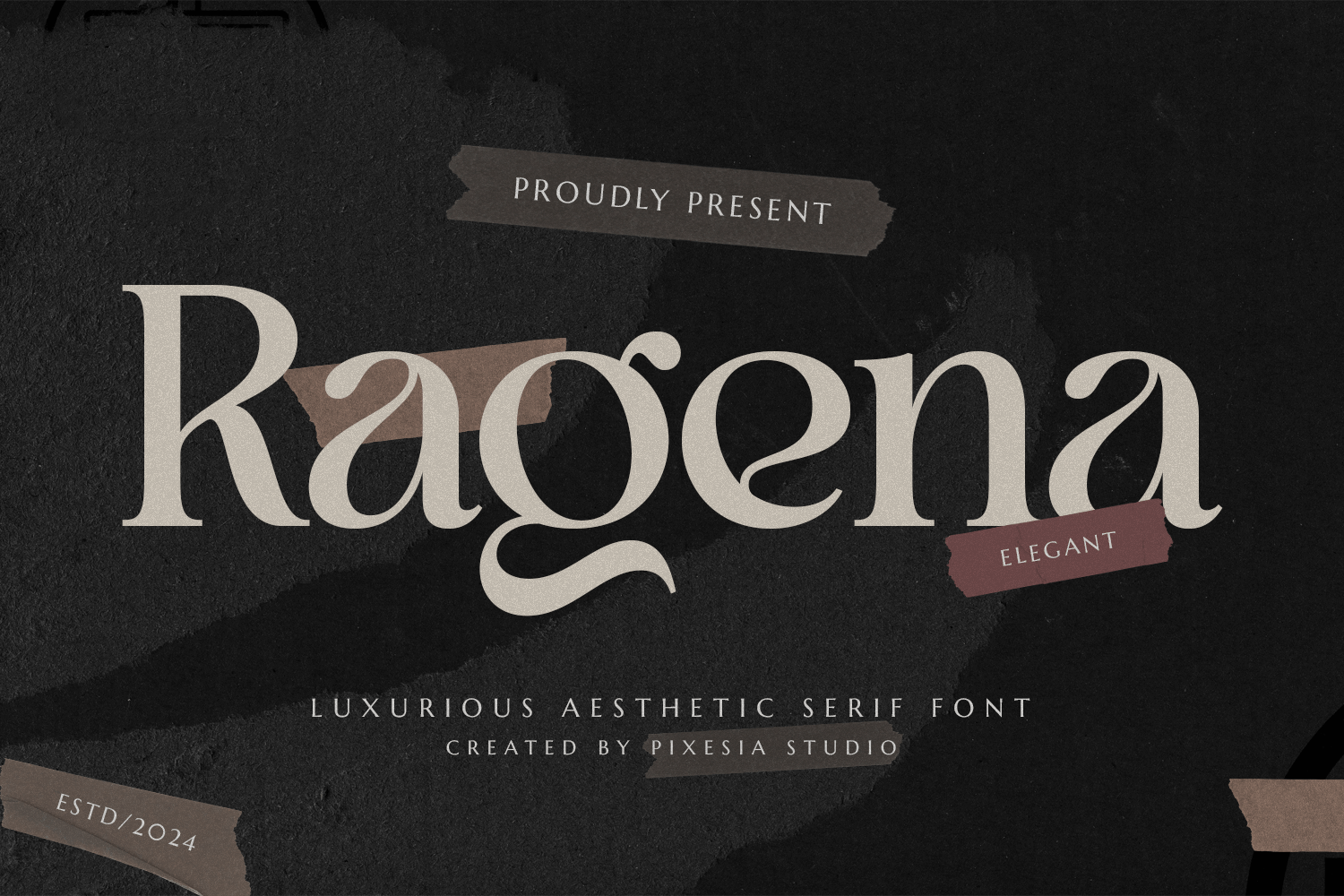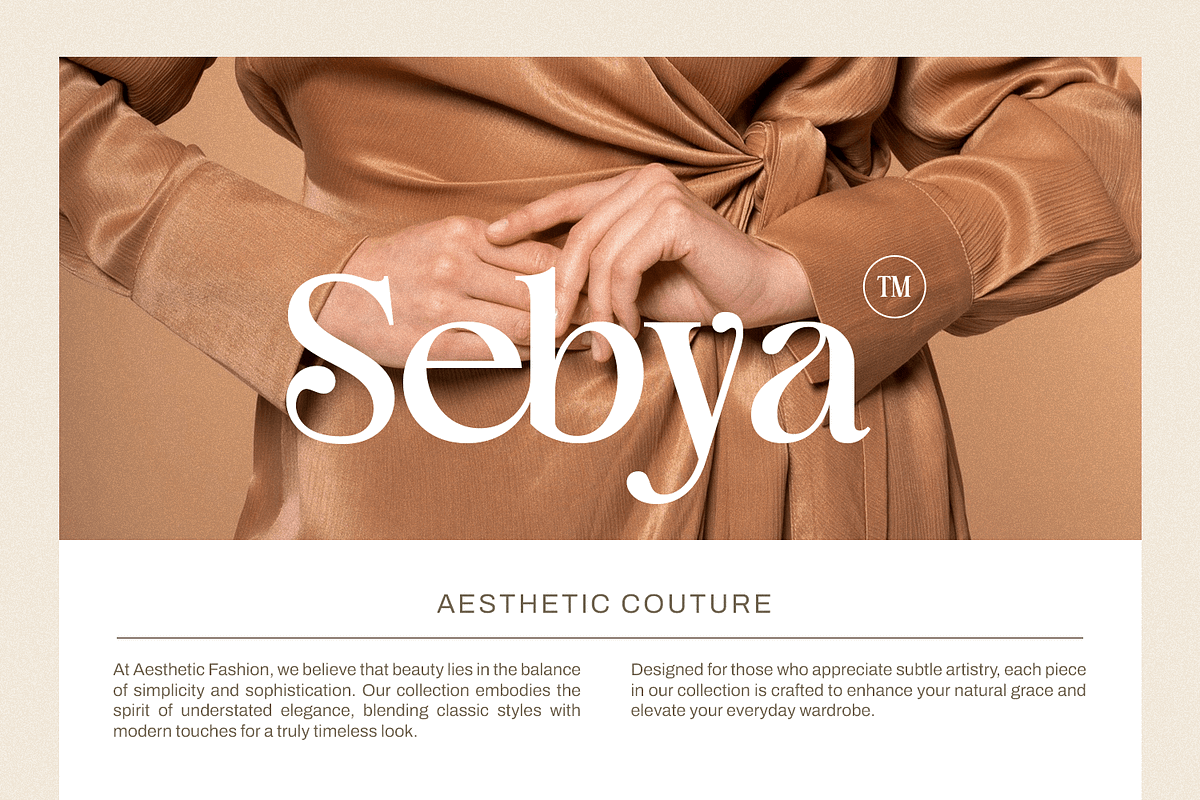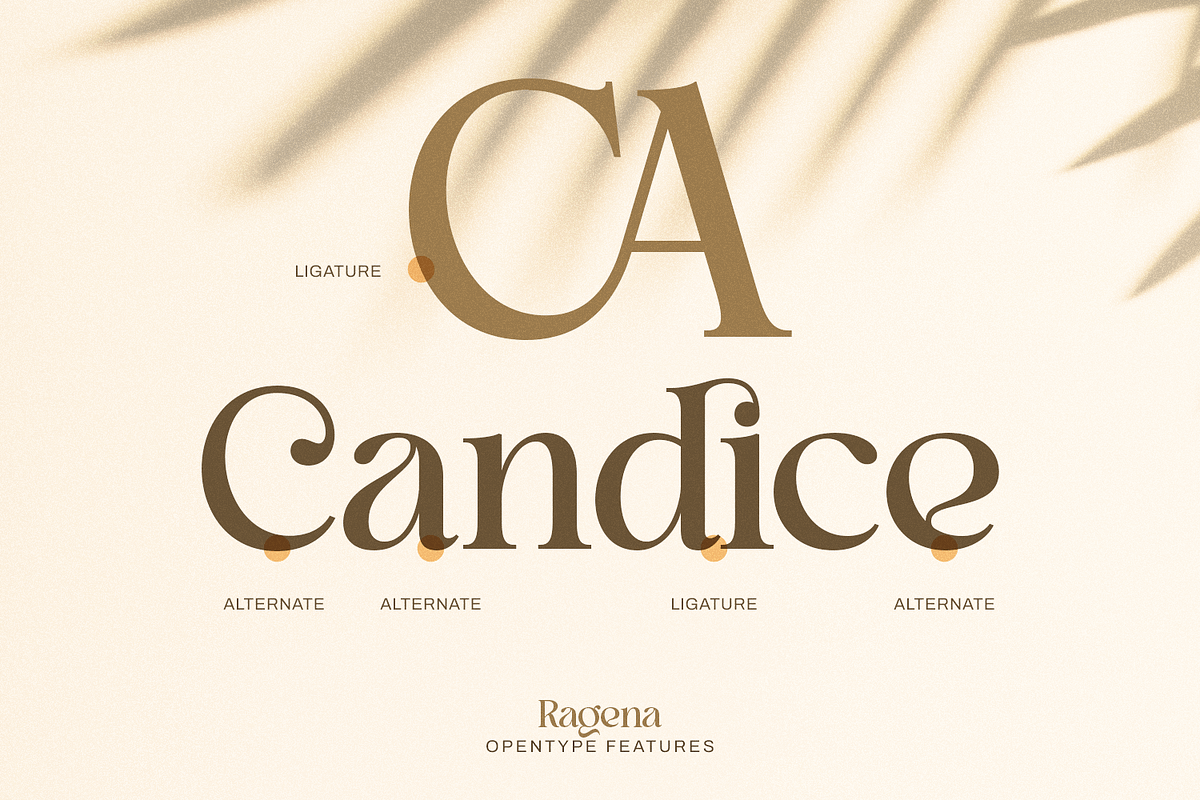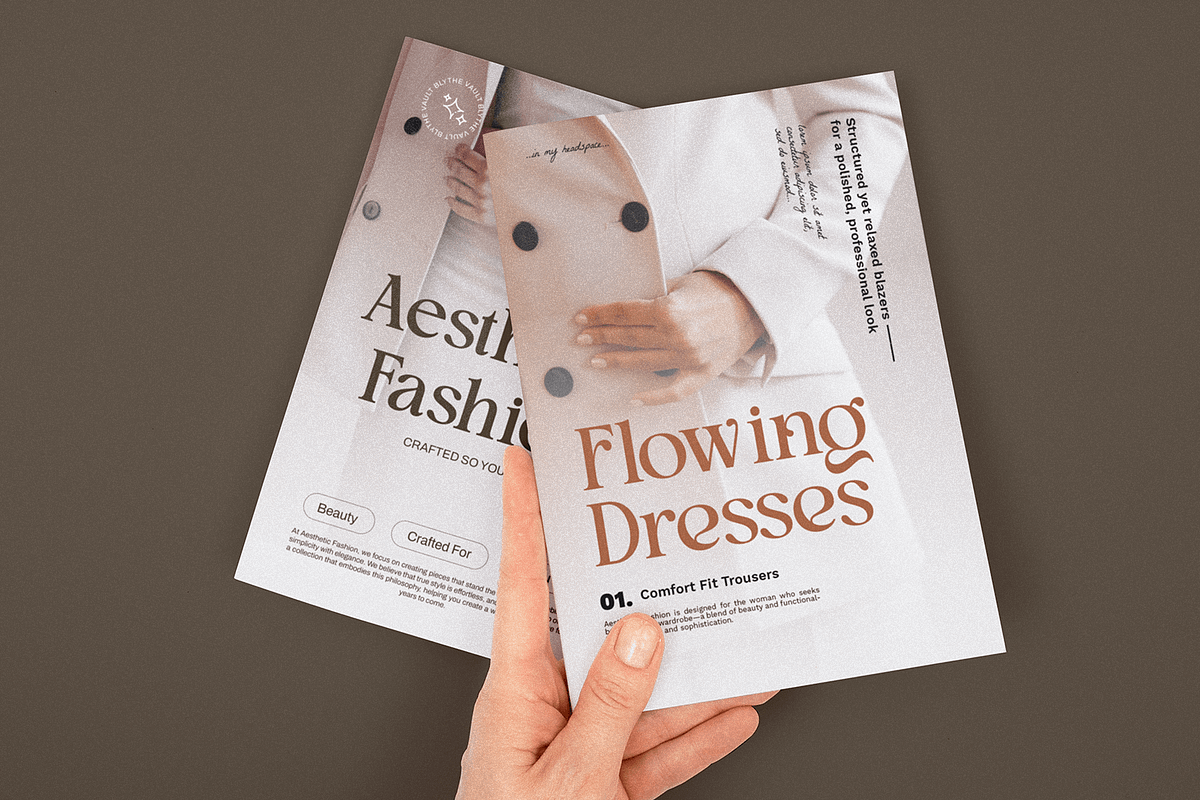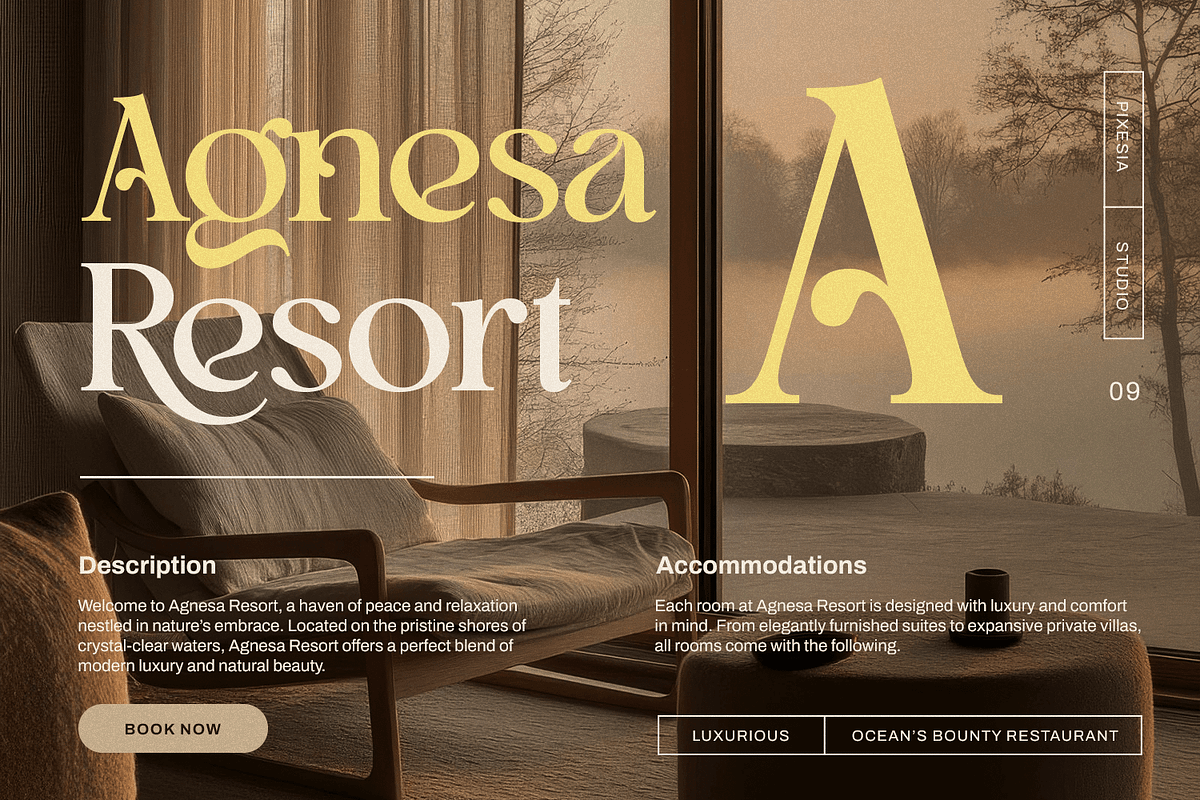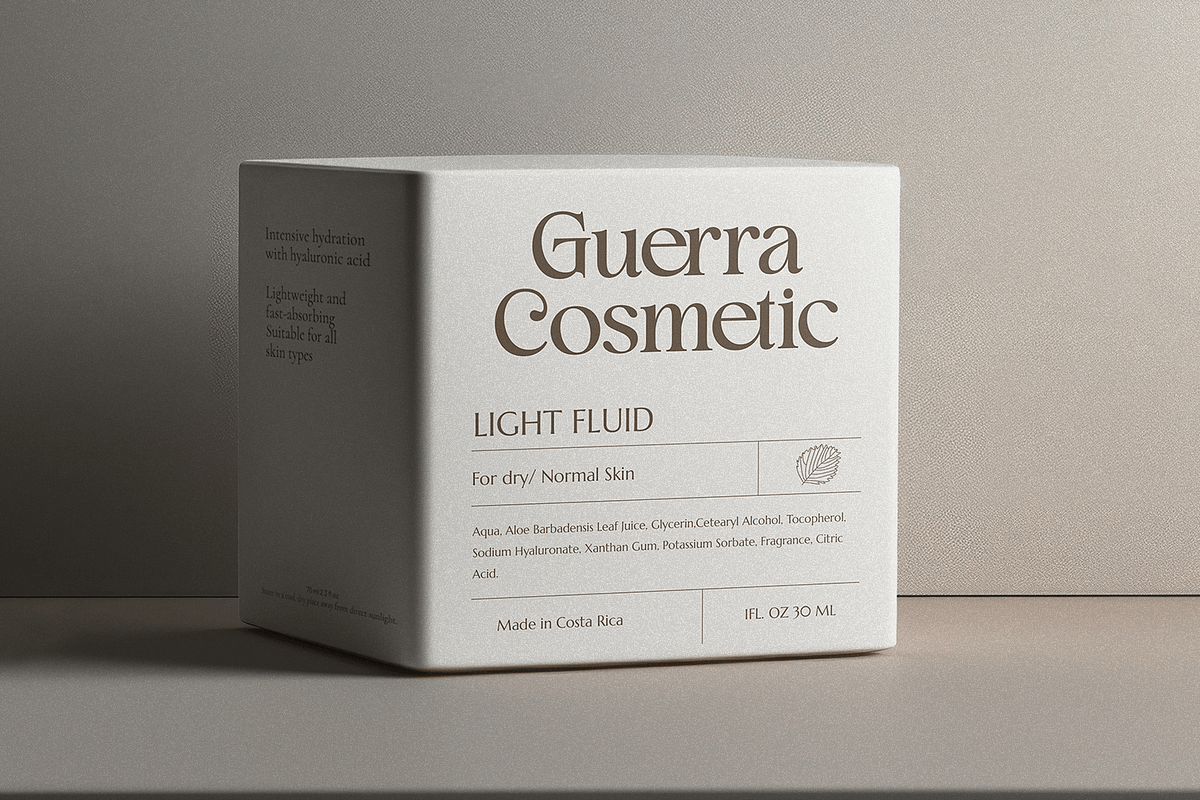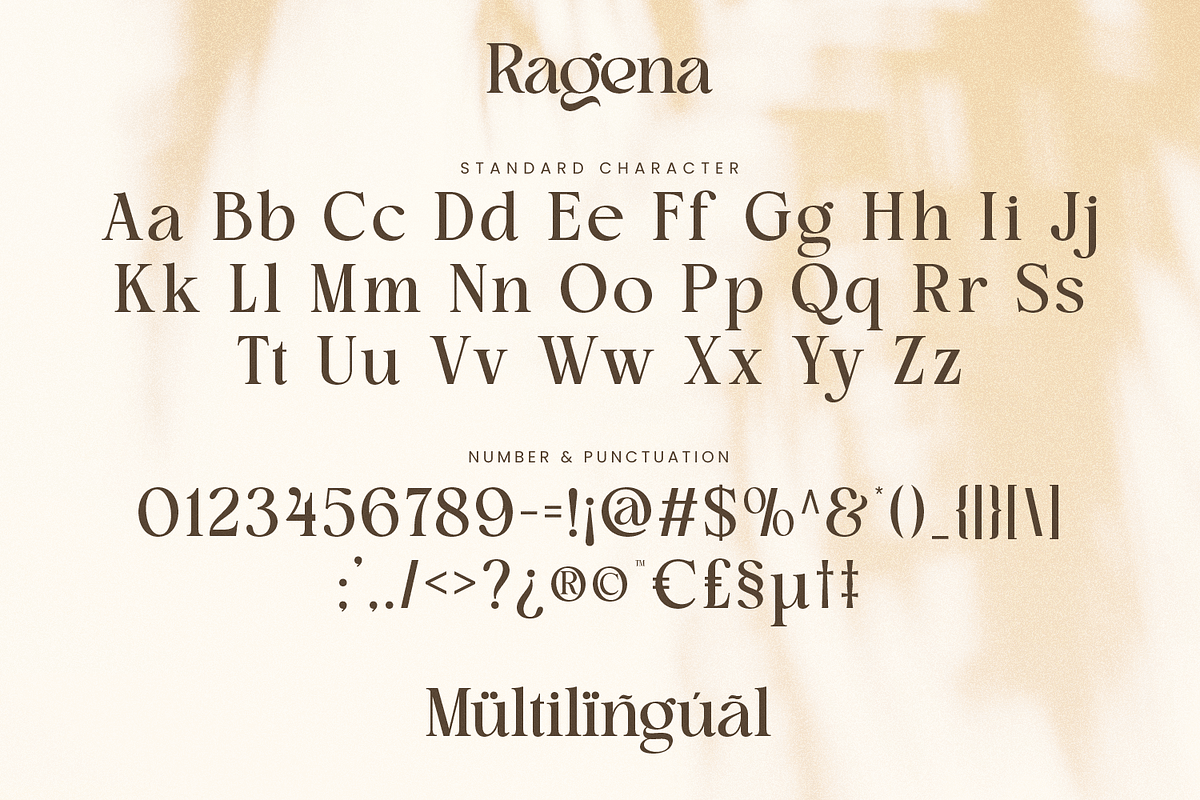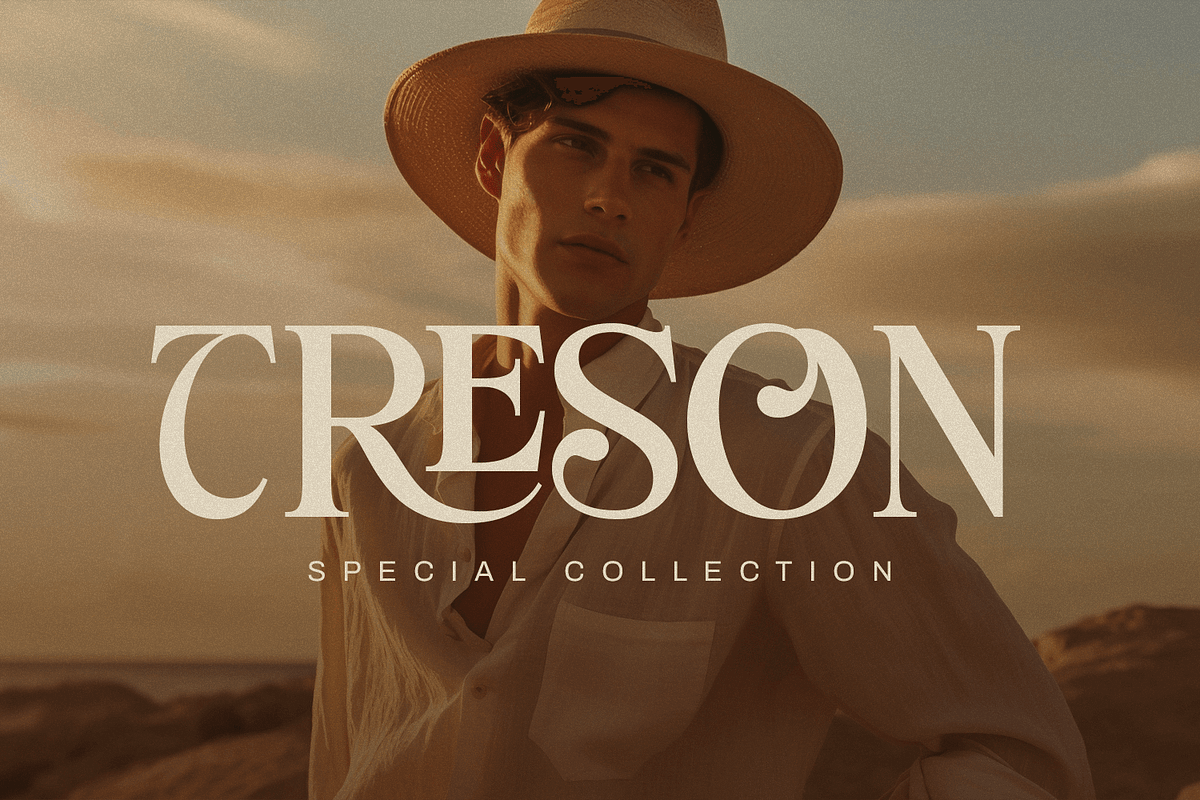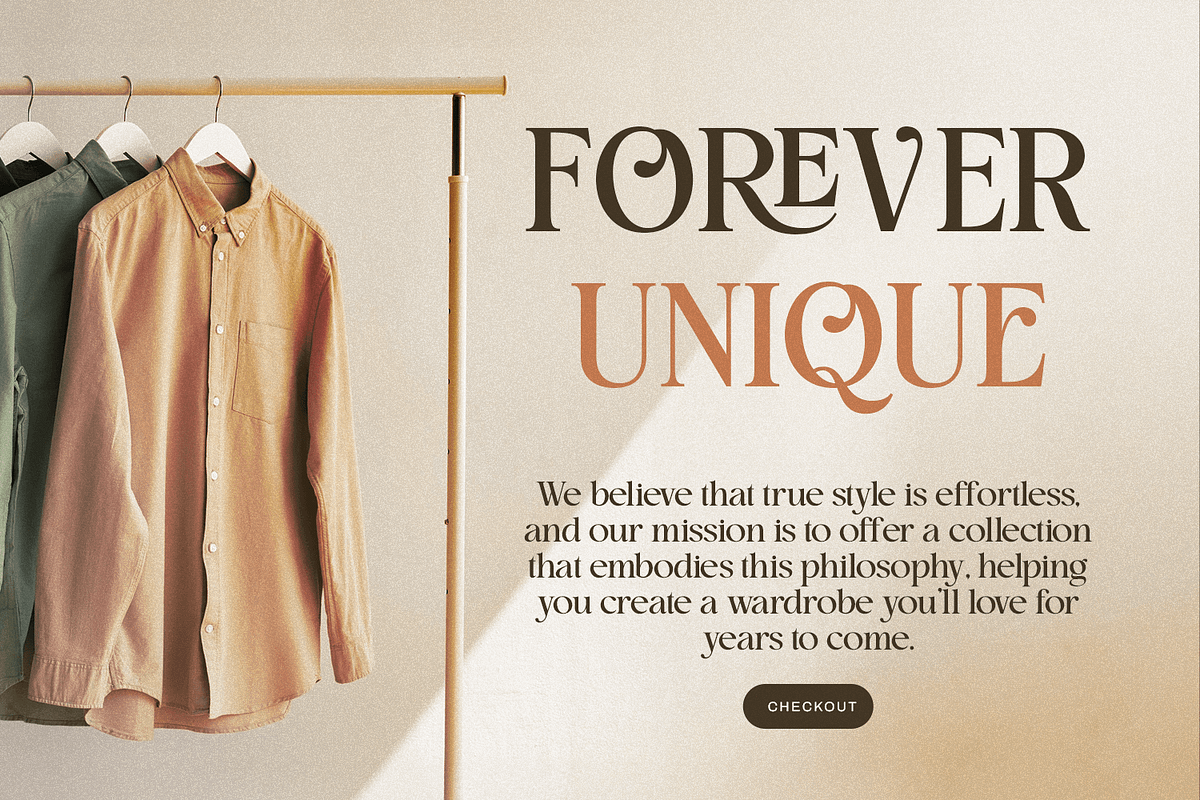
Ragena - Bold Serif Font
Introducing Ragena - Bold Serif Font
Ragena is a bold serif font that commands attention with its striking and powerful presence. Its strong, confident letterforms make it ideal for designs that require a touch of sophistication and impact.
Ragena is perfectly suited for branding, logotypes, wedding invitations, headlines, romantic quotes, labels, social media posts, advertisements, product packaging, product designs, label, photography, watermark, invitation, stationery and any projects seeking a sense of elegance and authority.
- Multilingual Support including Afrikaans, Albanian, Basque, Catalan, Danish, Dutch, English, Estonian, Faroese, Filipino, Finnish, French, Galician, German, Icelandic, Indonesian, Irish, Italian, Malay, Norwegian Bokmål, Portuguese, Spanish, Swahili, Swedish, Zulu